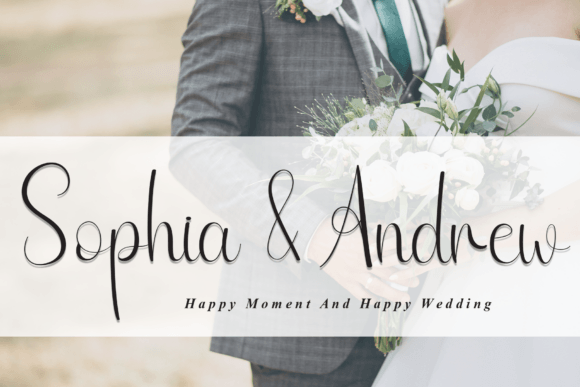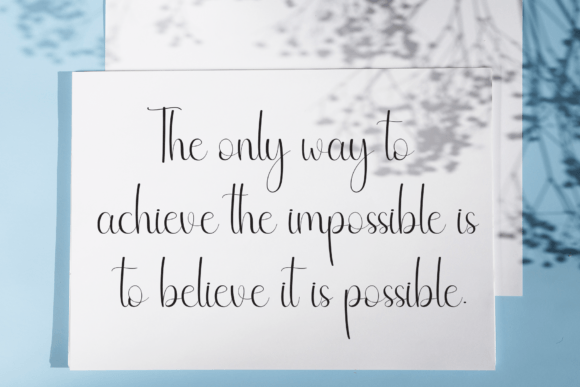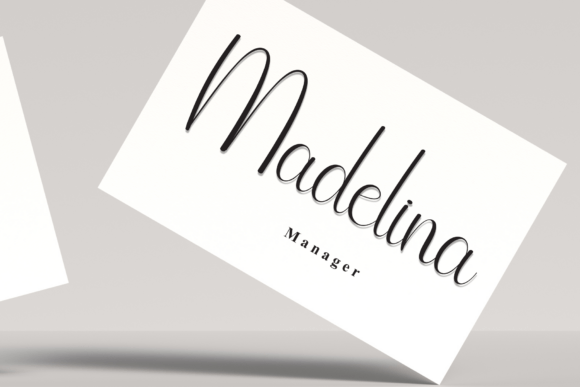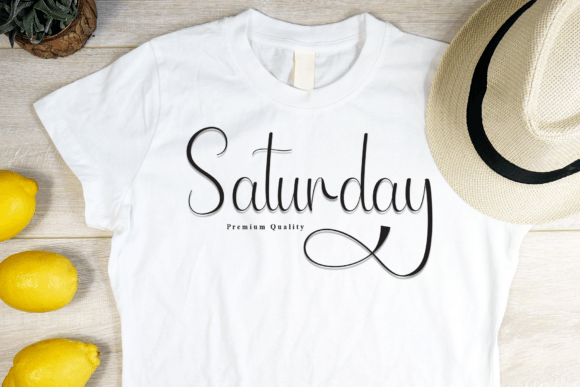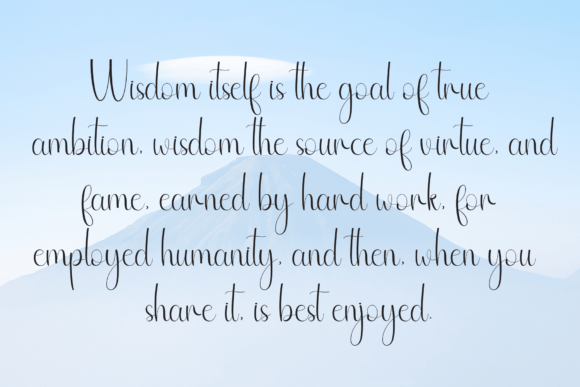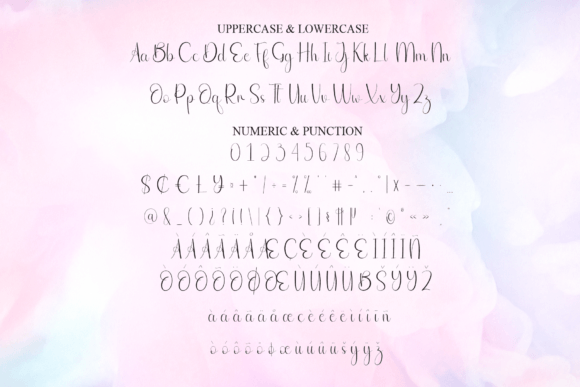
Discover the Enchanting Font: Elevate Your Designs with Elegance and Charm
In the world of typography, few fonts capture the essence of elegance and charm as effortlessly as the Enchanting Font. This stylish handwritten script font is a masterpiece of modern design, boasting fluid, graceful strokes that instantly elevate any project to a new level of sophistication. Whether you’re a designer looking to create stunning branding, a crafty individual planning a special event, or simply someone who appreciates the beauty of refined typography, the Enchanting Font is sure to captivate your imagination and inspire your creativity.
The Beauty of Enchanting Font
At the heart of the Enchanting Font’s appeal lies its unique blend of fluidity and grace. Each letter is carefully crafted to flow seamlessly into the next, creating a natural, harmonious look that is both timeless and contemporary. The smooth curves and refined strokes of this font lend themselves perfectly to a wide range of applications, from luxurious branding and elegant invitations to beautiful stationery and beyond.
For designers, the Enchanting Font offers a versatile tool that can be used to add a touch of class and sophistication to any project. Its elegant appearance makes it ideal for:
- Branding: Create a lasting impression with a logo or wordmark that exudes refinement and style.
- Invitations: Add a personal touch to wedding invitations, event invites, or any special occasion with a beautifully crafted script.
- Stationery: Elevate your business or personal correspondence with elegant letters, notes, or cards.
Crafters and DIY enthusiasts also have much to gain from the Enchanting Font. Use it to:
- Personalize gifts: Add a special touch to homemade gifts, such as personalized mugs, candles, or embroidered clothing.
- Create art: Use the font as a basis for hand-lettering or digital art projects, adding a sophisticated element to your work.
Why Choose Enchanting Font?
With so many fonts available, what sets the Enchanting Font apart? Here are a few reasons why designers and crafters are drawn to this beautiful script:
- Unique Style: The Enchanting Font boasts a distinctive, handcrafted look that stands out in a sea of digital fonts.
- Ease of Use: Designed with usability in mind, this font is easy to read and works well across various mediums and sizes.
- Versatility: Whether you’re working on a digital project or a print design, the Enchanting Font adapts seamlessly to different contexts.
Tips for Using Enchanting Font
To make the most of the Enchanting Font, consider the following tips:
- Pair with Simplicity: Let the font be the star of your design by pairing it with simple backgrounds or minimalist elements.
- Experiment with Colors: While the font itself is elegant, experimenting with different colors can add another layer of sophistication or playfulness.
- Mix and Match: Don’t be afraid to combine the Enchanting Font with other typography to create visual interest and hierarchy in your design.
The Enchanting Font is more than just a typeface; it’s a design element that can transform your projects with its elegant, charming presence. Whether you’re looking to create a stunning brand identity, craft beautiful invitations, or simply add a touch of sophistication to your designs, this versatile and stylish font is sure to enchant. Discover the beauty and versatility of the Enchanting Font today and take your designs to new heights of elegance and charm.